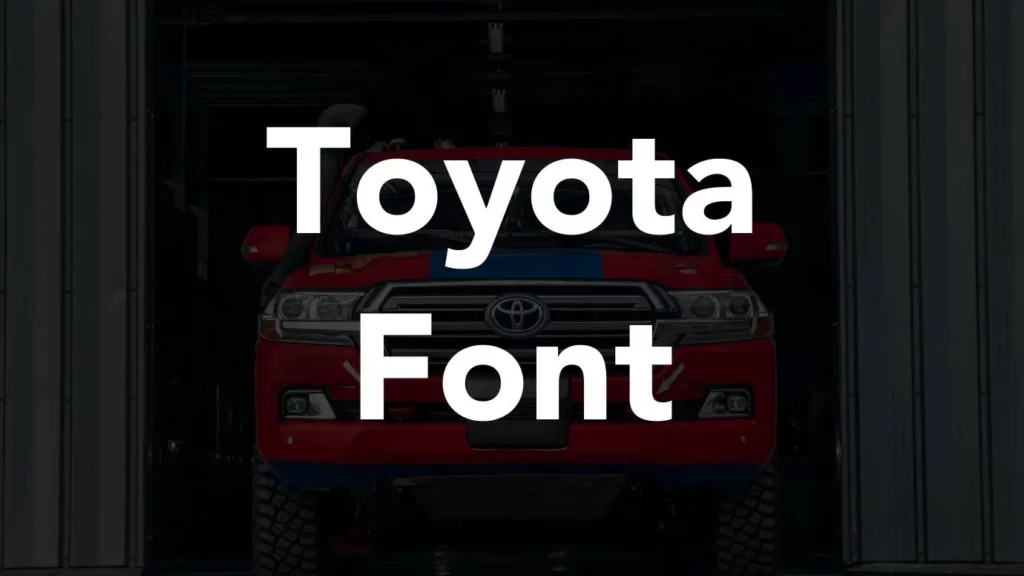
In today’s world, we are speaking to a modern branding textual style known as the Toyota text style. Toyota Font is a vehicle company in Japan that was made on 28 Eminent 1937 It was at first outlined by Mr. Adrian Frutige within the Linotype text style foundry. And it has a place for the Sans-serif typeface.
This typeface was initially outlined on the base of the Toyota Company symbol. Avenir’s textual style is utilized for the advancement of this stunning and charming textual style. Presently, it is most prevalent all over the world due to its keen features.
This typeface is nice for realistic plan preparation. It has lovely characters counting capitalized and lowercase. This typeface contains a part of clean surfaces and incredible glyphs. It is idealized for making official companies’ symbol plans and advertising.
Toyota Font View on Image Designs
This Sans-serif typeface is useable for plans that are related to computerized showcasing and all individual and private purposes. You’ll utilize this typeface for magazines, daily papers, introductions, and T-shirt designs.
Use of Toyota Font
You’ll be able to utilize this typeface for different places such as Catalogs, pennant plans, blurbs plans, and social media post plans. It is additionally relevant for homeware and craftsmanship plans in each field.
You can too utilize this typeface for making high-quality card plans like commerce cards, welcome cards, wedding cards, blessing cards, and numerous other related places.
Many web originators utilize this dazzling and eye-catching typeface in each field of the plan like websites and blog headlines, titling of planning purposes, and so on. You can also compare it with couture sans serif font. You’ll be able to compose brief and long sections, documentation, assignments, and other composing ventures by employing a free form of this typeface.
Many businessmen utilize this typeface for making their shop advertisements, shop names, and other private businesses. For labeling and making layouts, this typeface is additionally extraordinary for this.
What is the sort of Toyota Font?
This appealing typeface has a place in the Sans-Serif textual style family. It was a prevalent car company in JAPAN. It was outlined by a well-famous creator Mr. Adrian Frutige.
Where can we utilize Toyota Font?
This in-vogue textual style is utilized for different sorts of logos, standards, comedian covers, social media posts,s and numerous other related areas of the plan